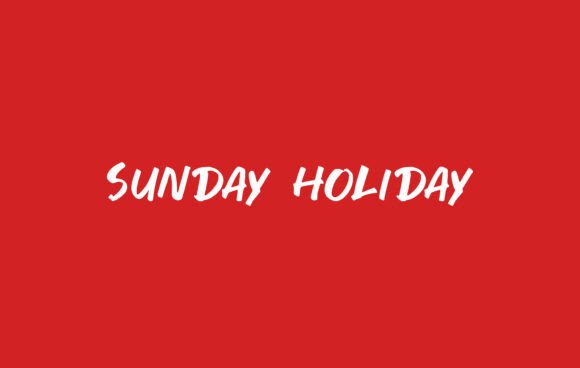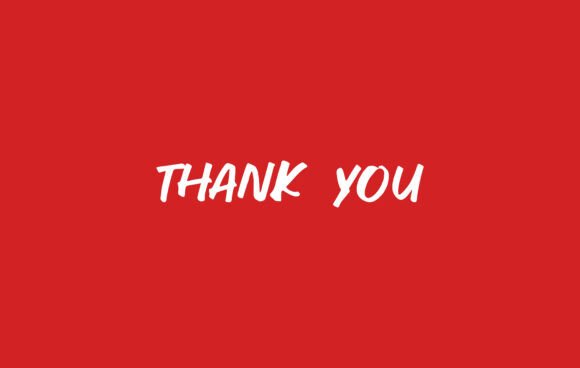
Introduction to Harmony Glyph Font
Harmony Glyph font is an authentic handwritten font with a romantic touch.
Key Features of Harmony Glyph Font
Why Choose Harmony Glyph Font?
Harmony Glyph Font offers exceptional quality and versatility, making it a valuable addition to your design toolkit. Whether you’re creating for personal projects or commercial use, Harmony Glyph Font delivers professional results.